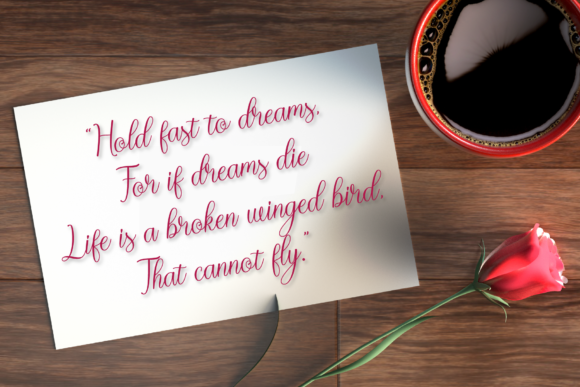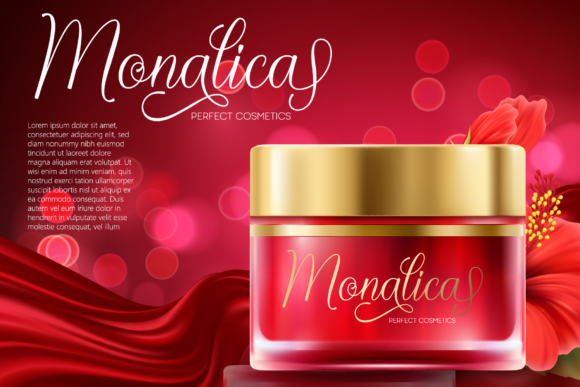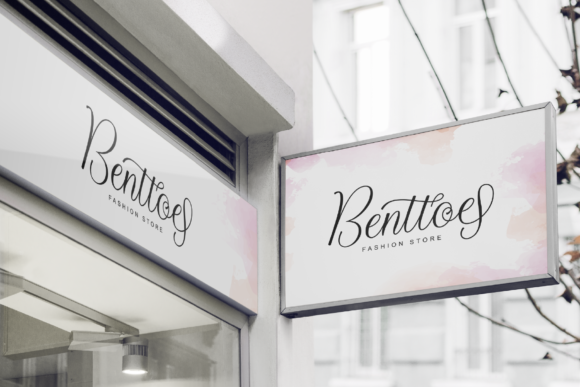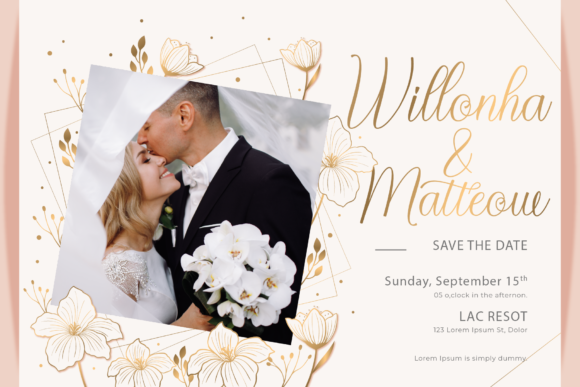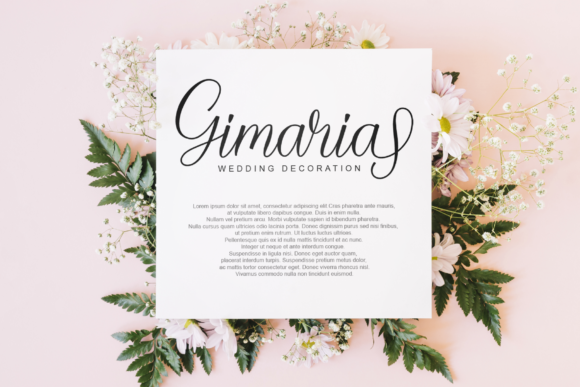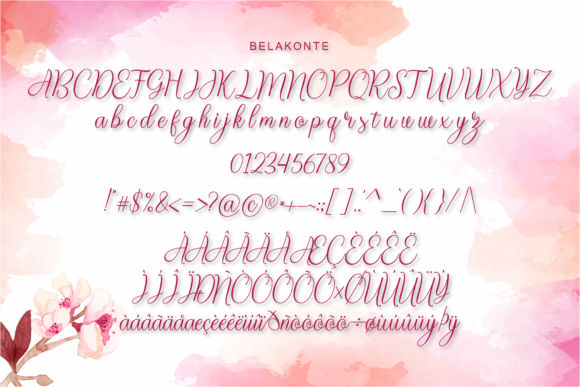
Introducing Belakonte Font: Elevate Your Designs with Elegance and Sophistication
In the world of typography, a font can make or break a design. For designers and crafters seeking to add a touch of elegance and sophistication to their projects, look no further than the Belakonte Font. This beautiful, handwritten font is designed to bring a sense of luxury and refinement to any design, making it perfect for a wide range of applications, from branding and advertising to packaging and digital media.
What Makes Belakonte Font So Special?
Belakonte is an elegant and flowing handwritten font that boasts a range of features that set it apart from other fonts on the market. Here are just a few reasons why Belakonte is a must-have for designers and crafters:
- PUA Encoding: Belakonte is PUA (Private Use Area) encoded, which means that you can access all of the glyphs and swashes with ease. This makes it simple to add unique and creative touches to your designs.
- Varying Baseline: The font features a varying baseline, which gives it a sense of movement and fluidity. This helps to create a sense of elegance and sophistication, making it perfect for designs that require a high level of refinement.
- Smooth Lines and Glyphs: Belakonte’s smooth lines and gorgeous glyphs are a hallmark of its elegance and sophistication. The font’s lines are carefully crafted to create a sense of flow and continuity, making it perfect for designs that require a high level of visual appeal.
- Stunning Alternates: In addition to its standard glyphs, Belakonte also features stunning alternates that allow you to add even more creativity and uniqueness to your designs.
A Perfect Balance of Classic and Contemporary
One of the standout features of Belakonte is its ability to balance classic calligraphic influences with a contemporary, fresh feel. This makes it perfect for designers and crafters who want to create designs that are both timeless and modern. Whether you’re working on a branding project, a wedding invitation, or a digital media campaign, Belakonte is the perfect choice.
Use Belakonte Font in Your Designs
Belakonte is a versatile font that can be used in a wide range of designs, including:
- Branding and Advertising: Use Belakonte to create elegant and sophisticated branding materials, such as logos, business cards, and brochures.
- Wedding and Event Design: Belakonte is perfect for wedding invitations, save-the-date cards, and other event design materials.
- Packaging Design: Add a touch of elegance to your packaging designs with Belakonte, perfect for luxury brands and high-end products.
- Digital Media: Use Belakonte in your digital media projects, such as social media graphics, blog headers, and video titles.
Get Ready to Fall in Love with Belakonte
In conclusion, Belakonte Font is a must-have for designers and crafters seeking to add a touch of elegance and sophistication to their projects. With its unique features, versatility, and stunning design, Belakonte is the perfect choice for a wide range of applications. So why settle for ordinary fonts when you can have a font that truly stands out? Choose Belakonte Font for your next design project and experience the power of elegance and sophistication.